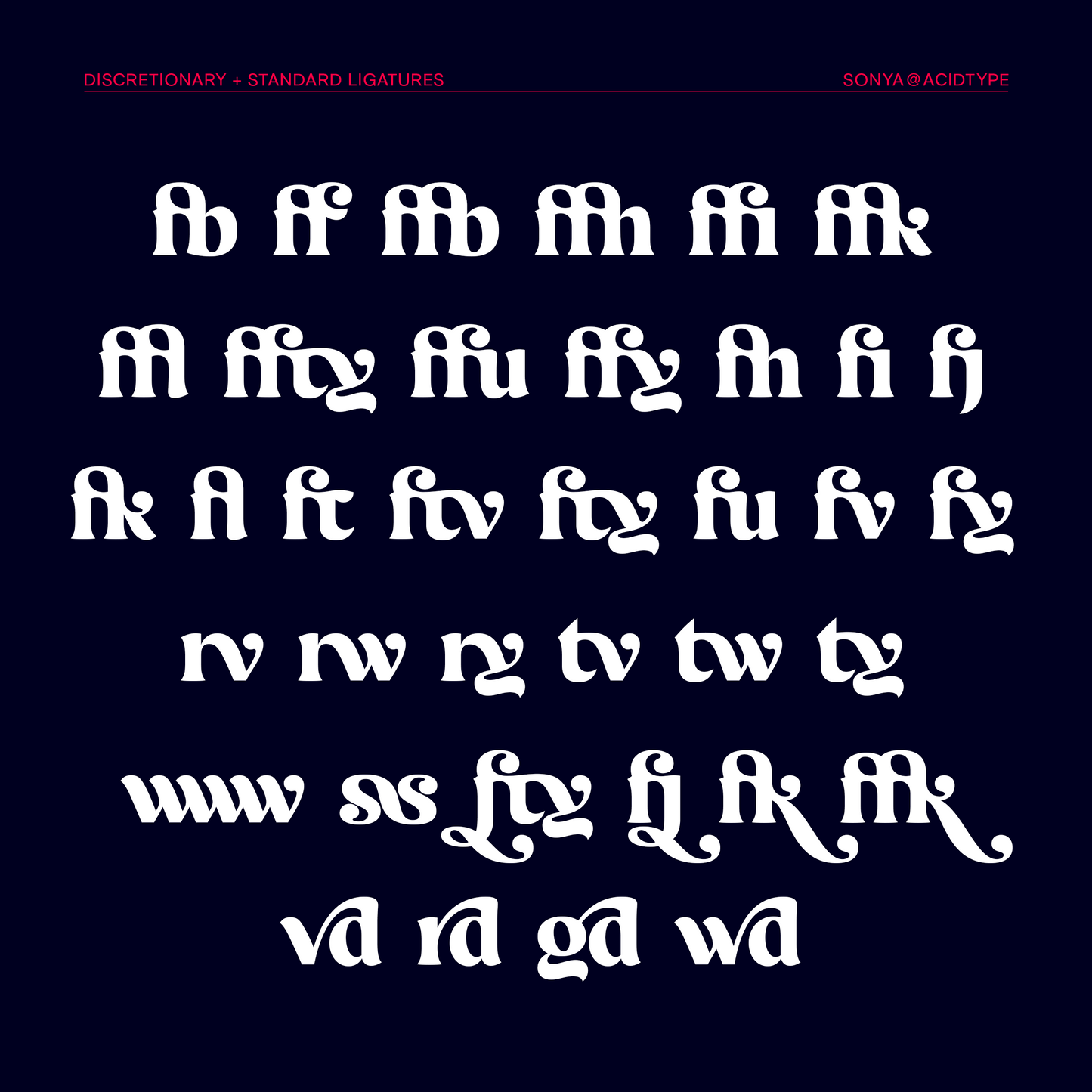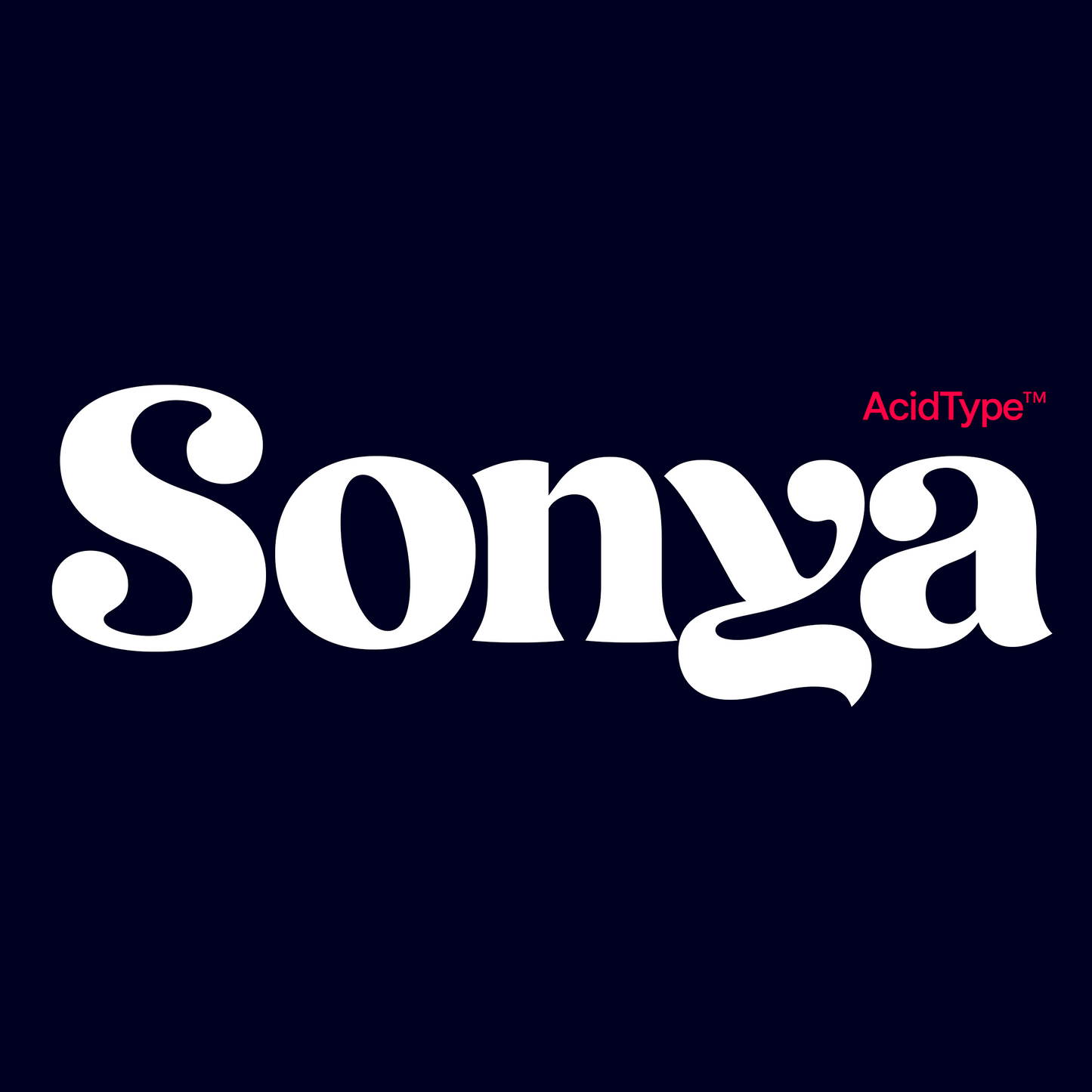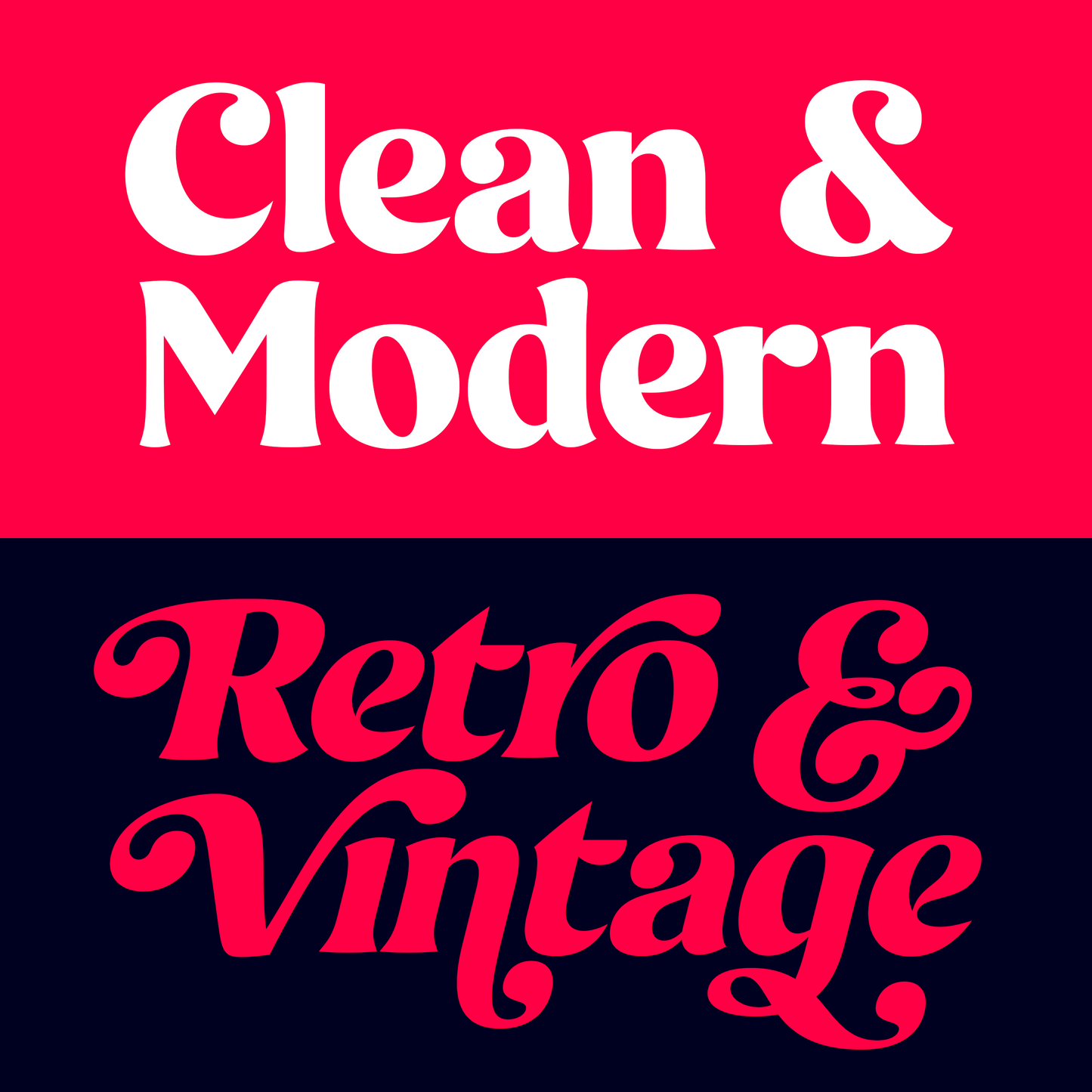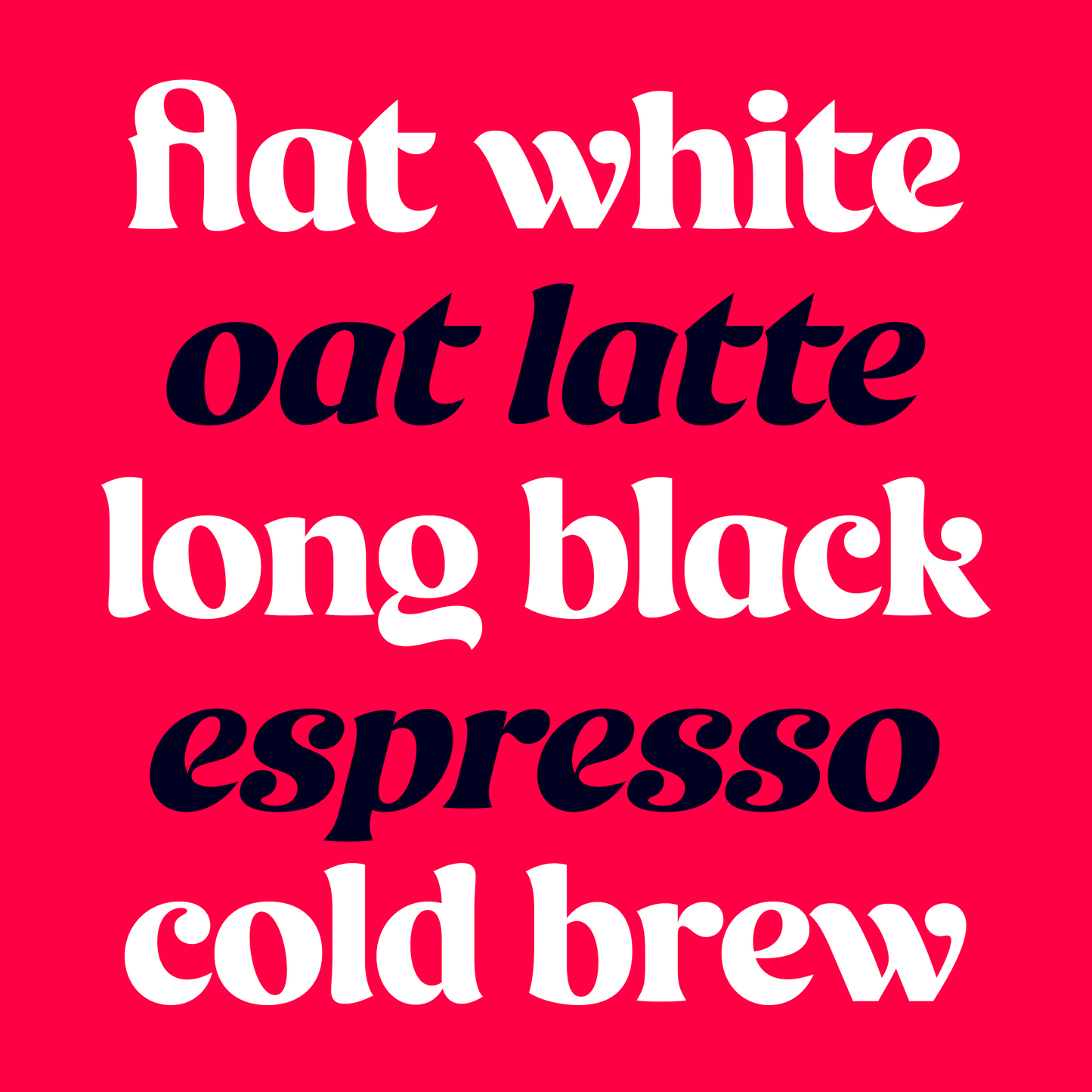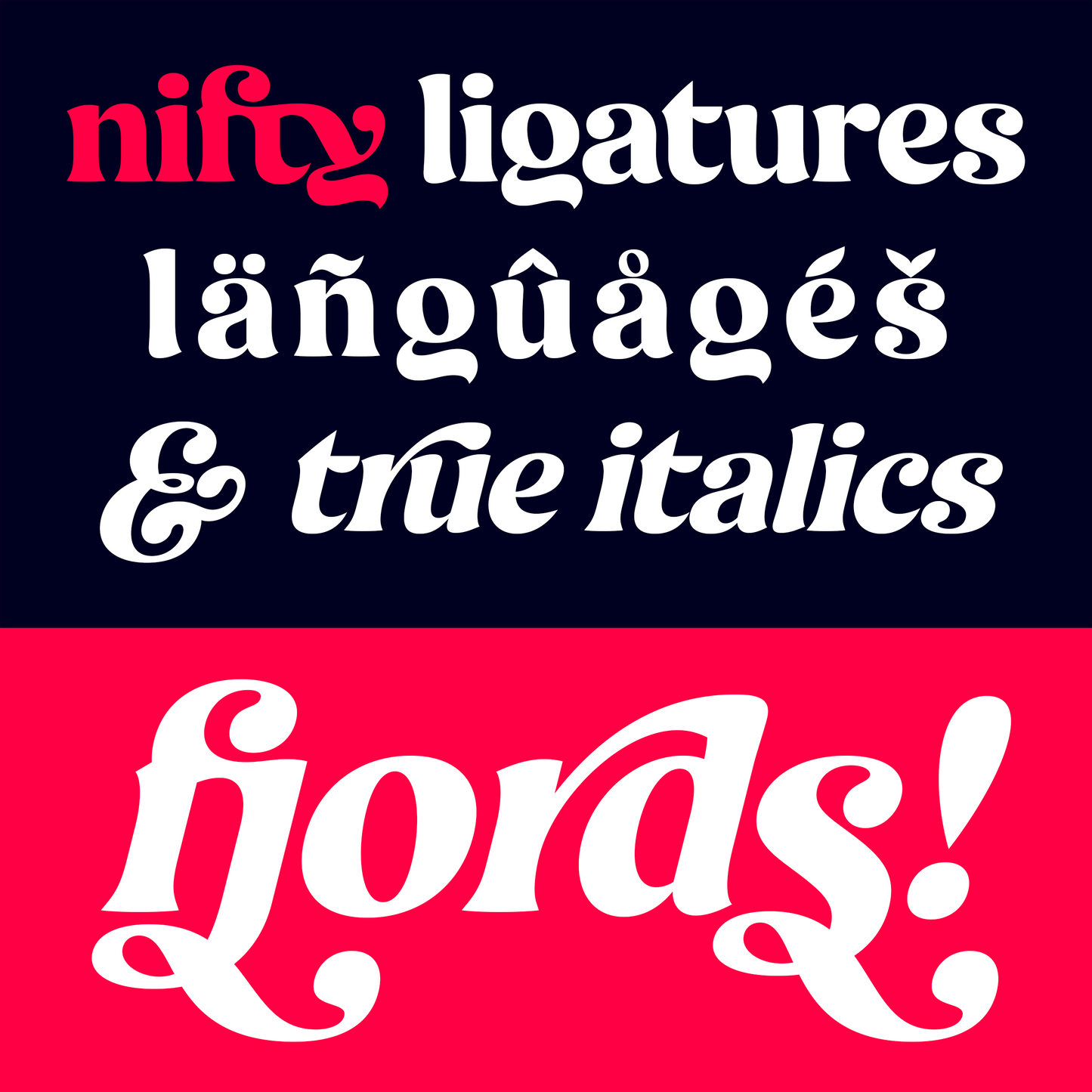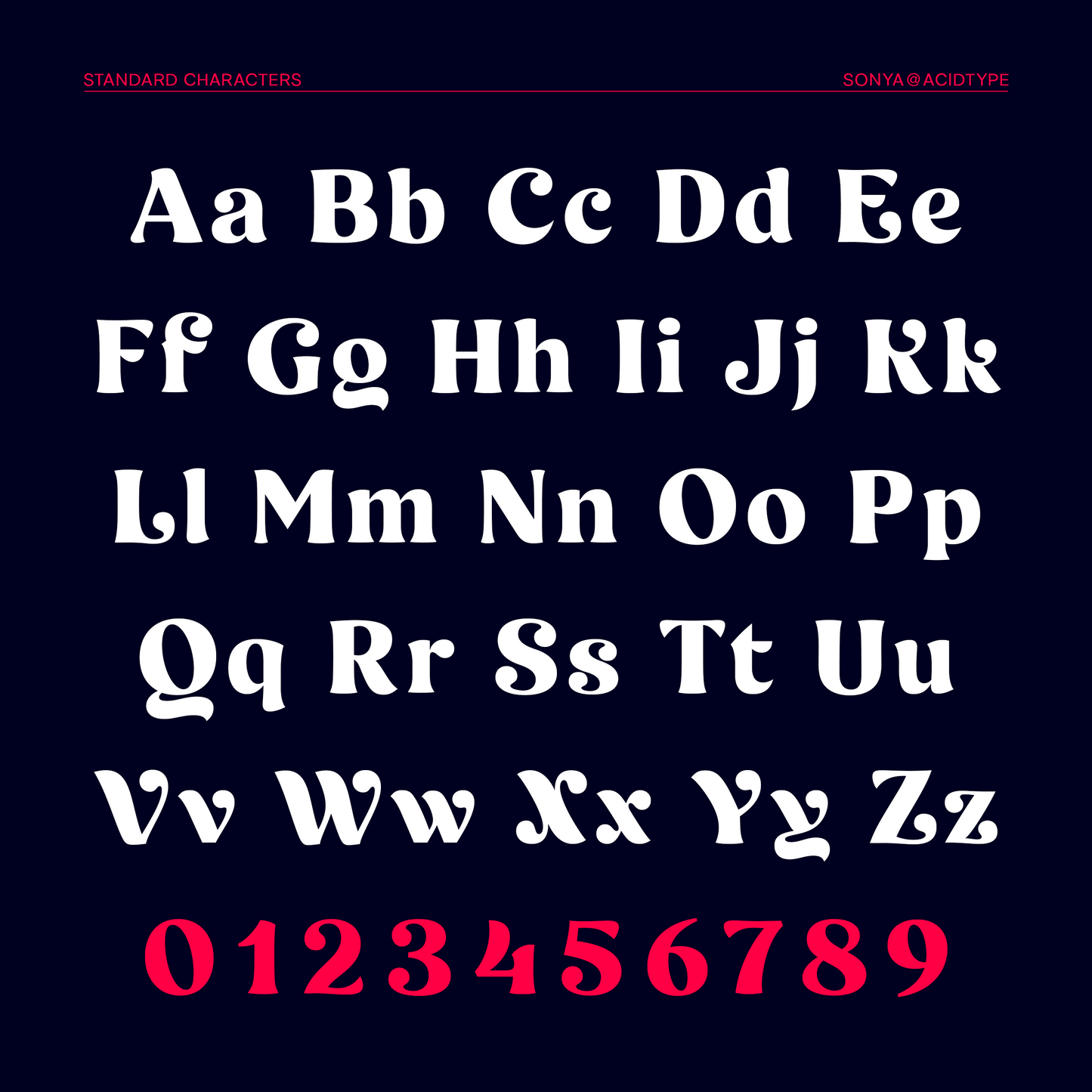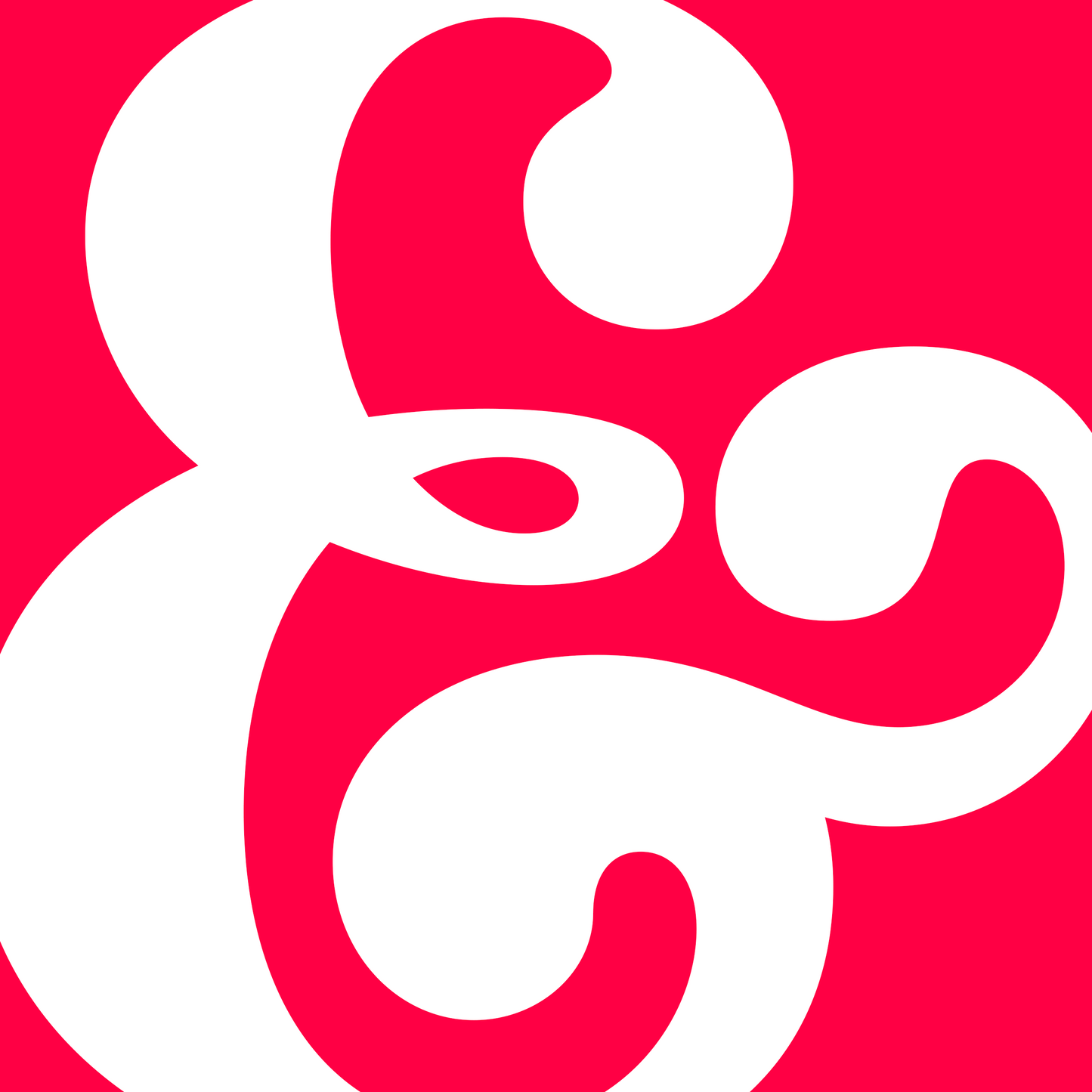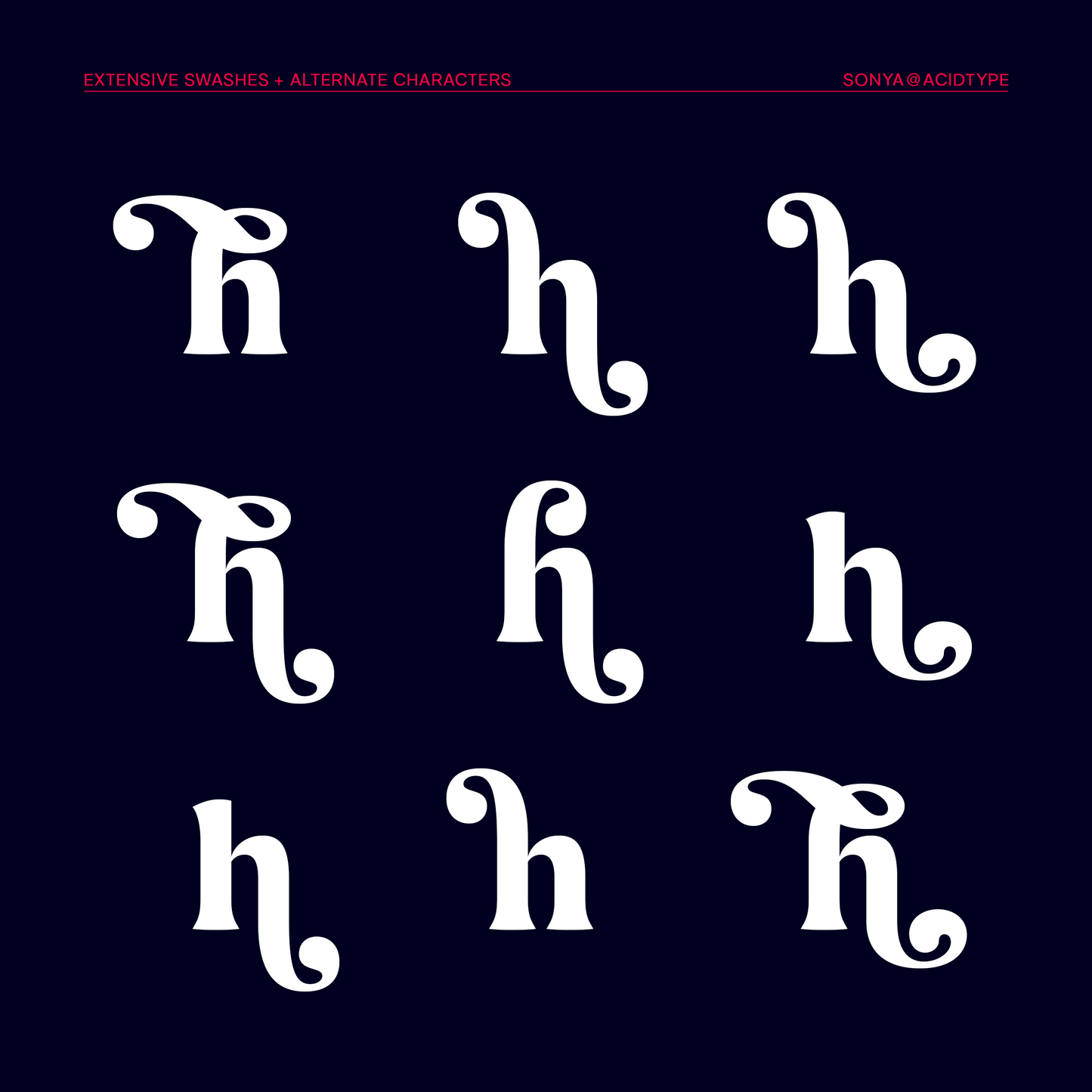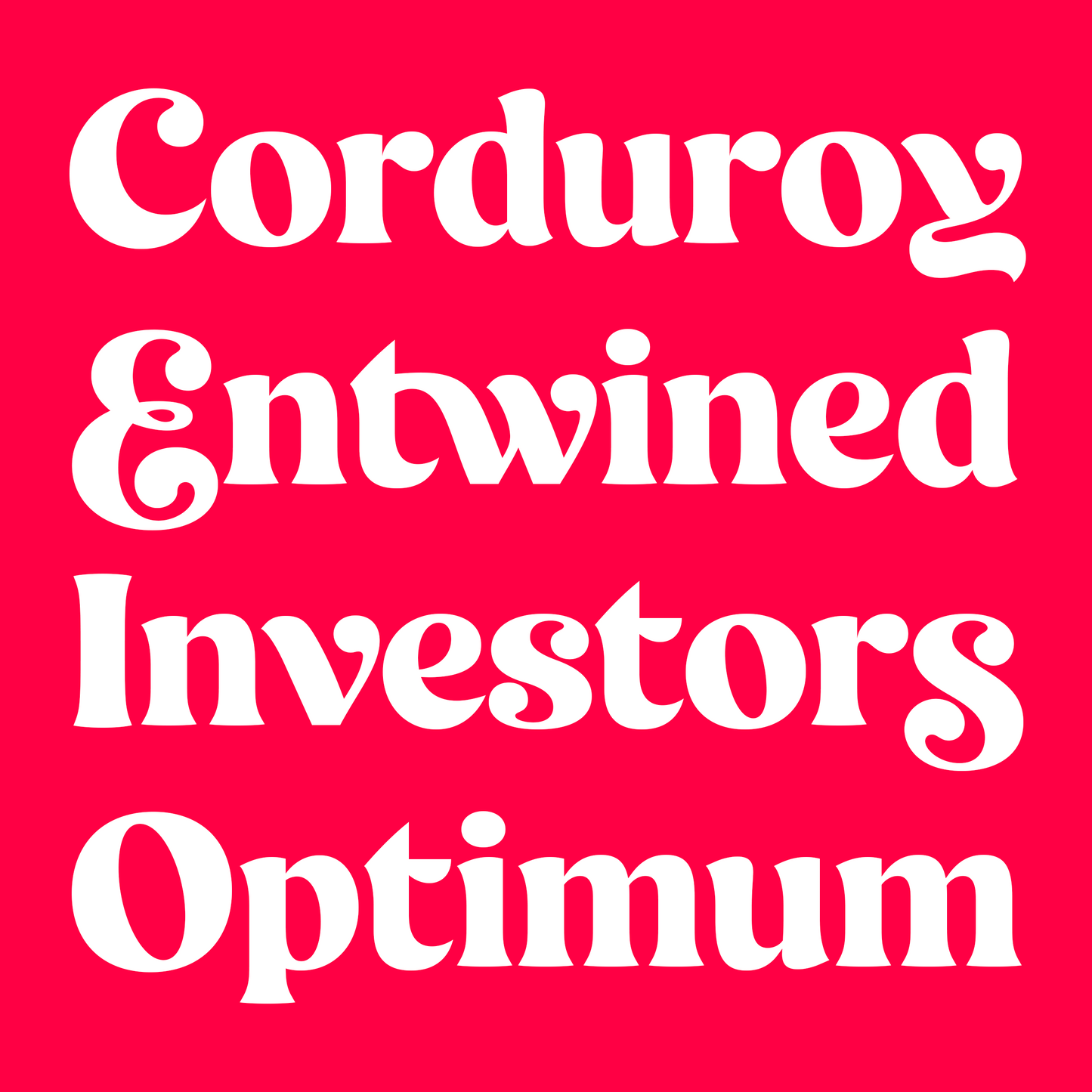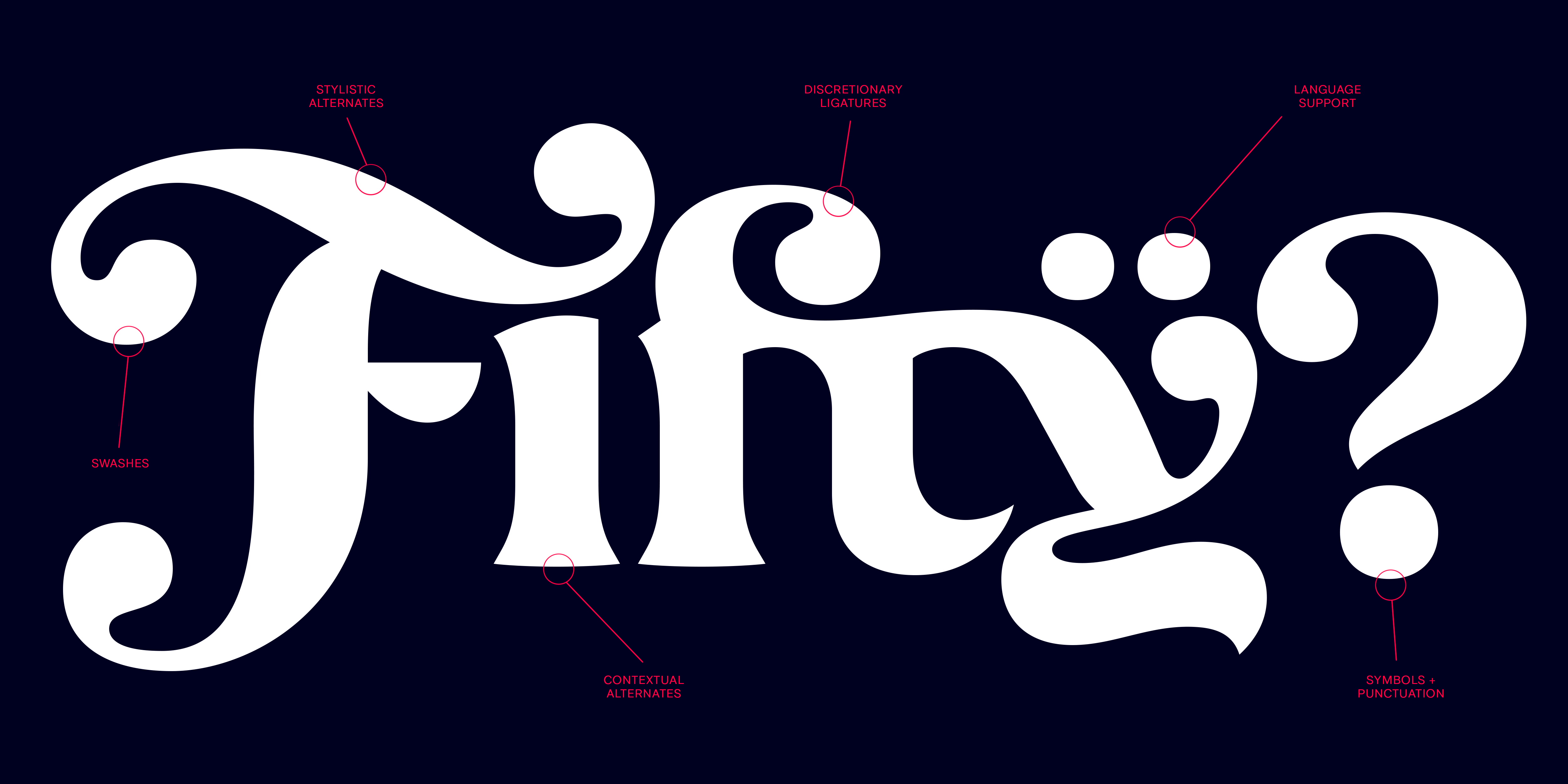
Sonya
AcidType
Sonya is a premium display typeface featuring extensive swashes, ligatures, alternate characters, and language support. Sonya blends modern clarity with a nostalgic vintage charm, making it ideal for both display applications and brand-focused text settings. This typeface excels in logotypes, print design, and branding, carefully crafted to balance character with legibility, versatility, and compatibility across various platforms.
Designed for contemporary print workflows, Sonya performs exceptionally well in editorial, packaging, and identity applications, whilst also being carefully optimised for screen. Its striking and expressive design ensures it stands out, yet it remains disciplined enough for reliable, everyday typographic work.
— SWASHES
— LIGATURES
— STYLISTIC ALTERNATES
— CONTEXTUAL ALTERNATES
— TRUE ITALICS